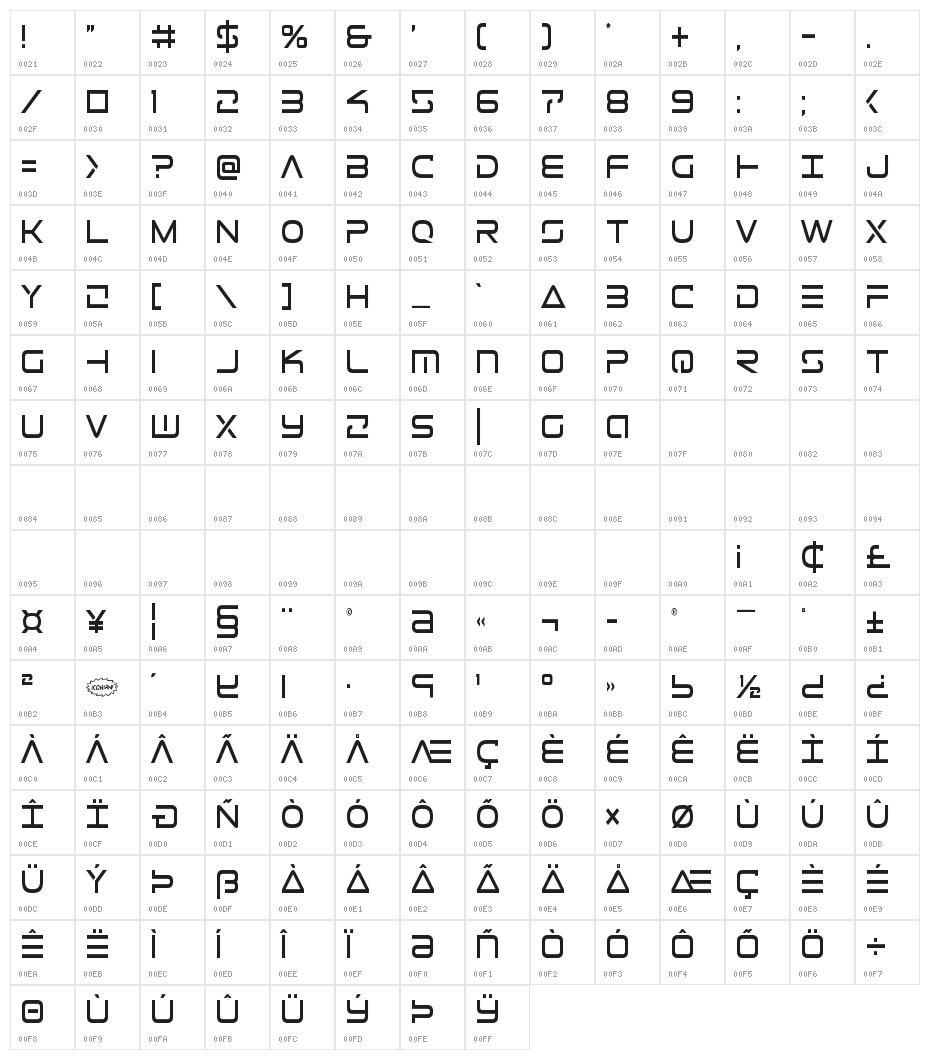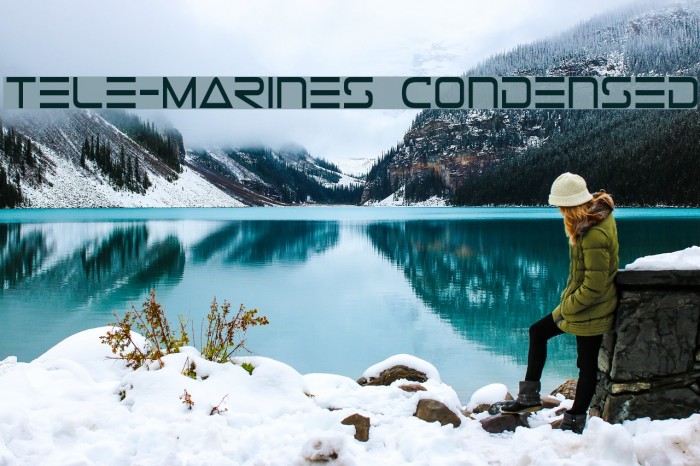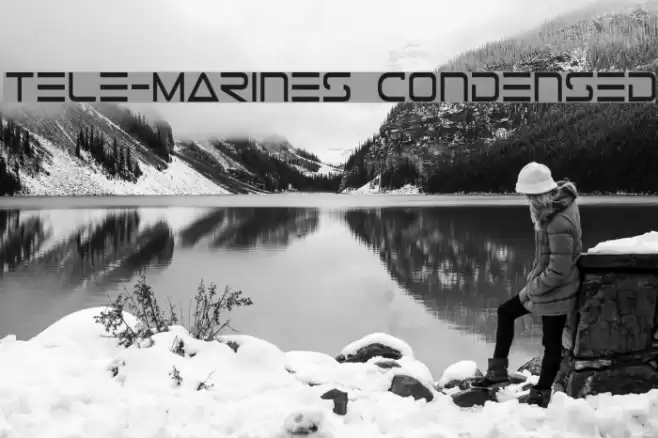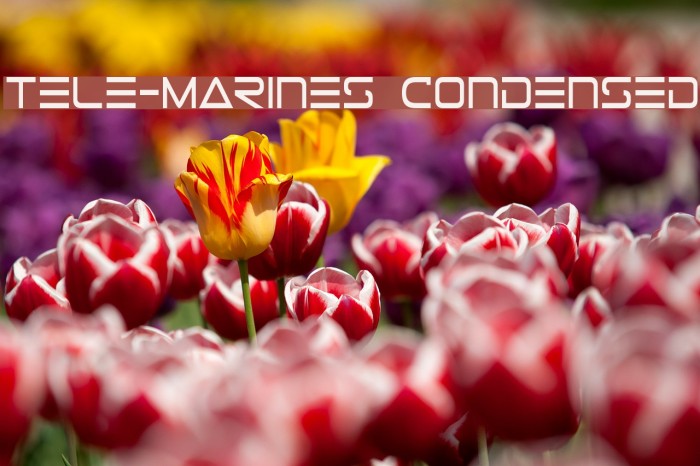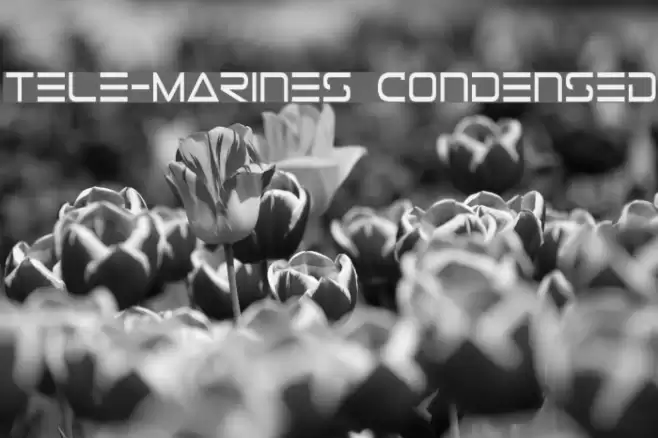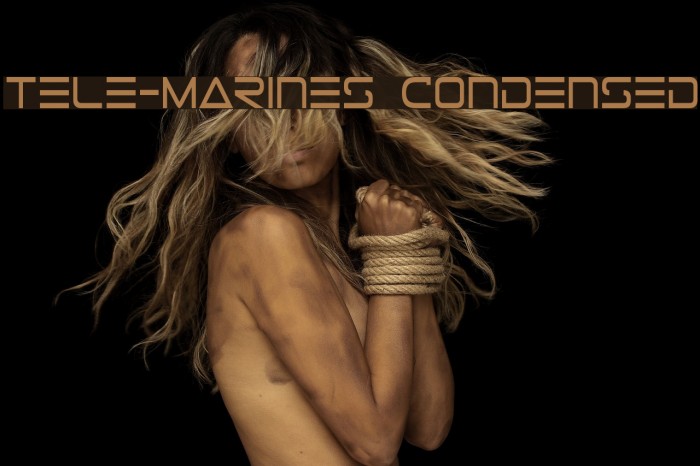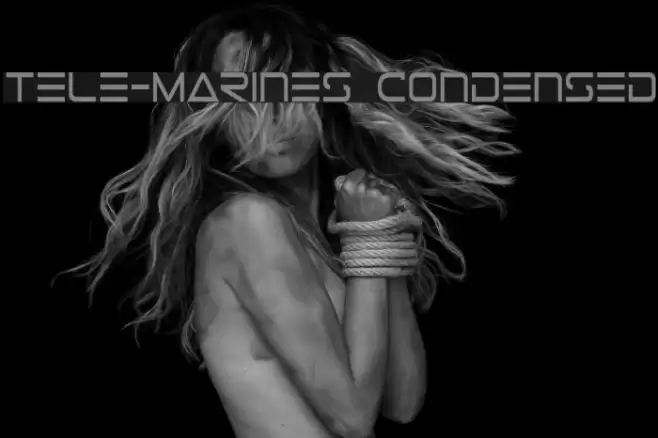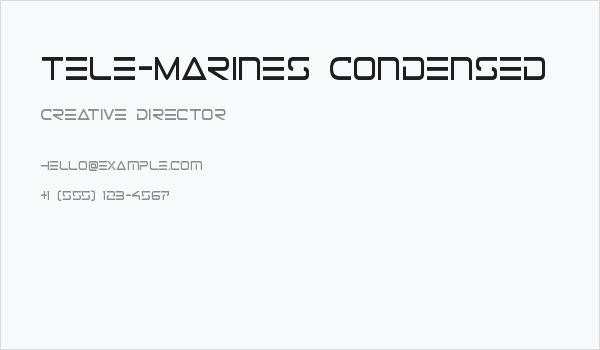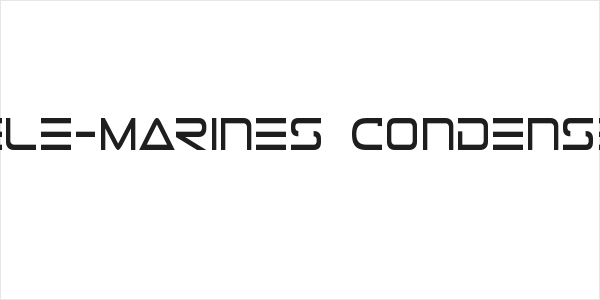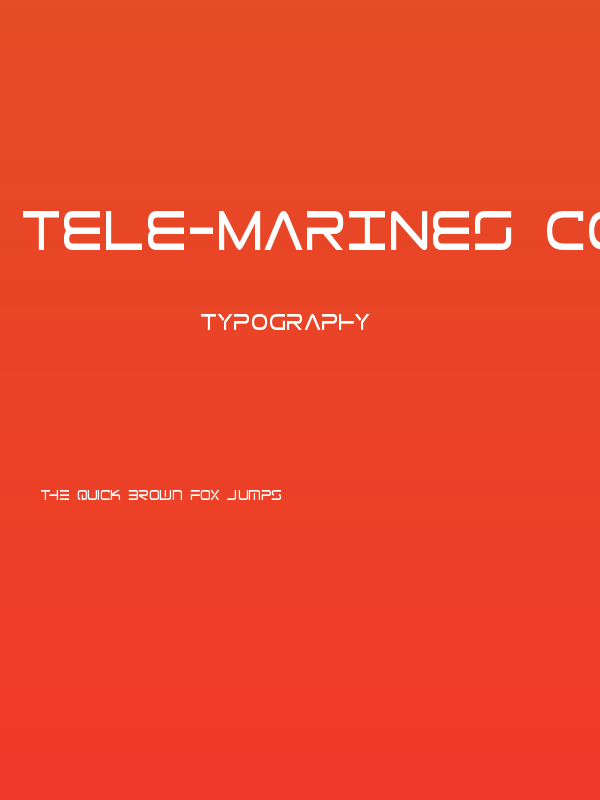
Tele-Marines Condensed Font
Tele-Marines Condensed Description
This font features a futuristic and geometric design with a distinctly angular and condensed style. The characters are crafted with sharp edges and clean lines, giving it a modern and technological appearance. The uppercase and lowercase letters maintain a consistent height, contributing to its uniform look. The numerals are bold and align well with the overall aesthetic, while the special characters complement the font's sleek design. Its condensed width makes it suitable for space-saving applications, while the unique character shapes add a touch of innovation and creativity.
| Proposed Projects | Ideal for technology branding, sci-fi posters, video game titles, and modern digital interfaces. |